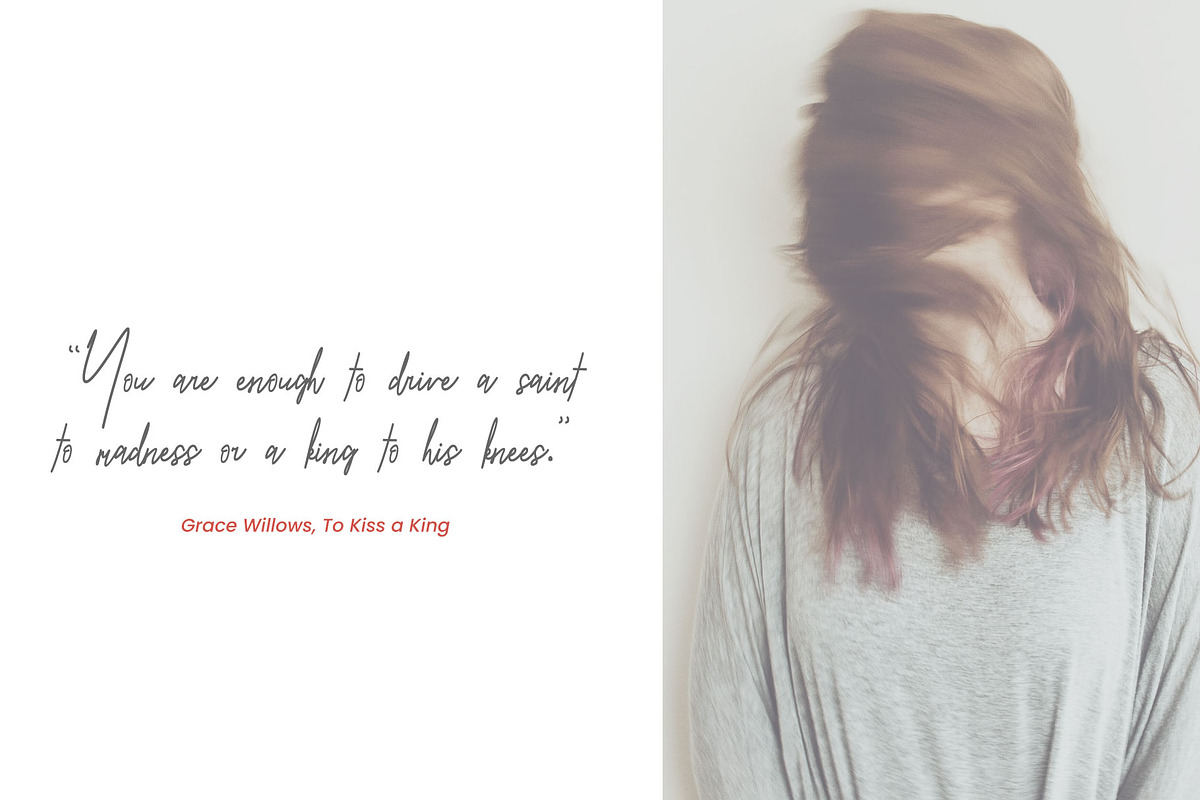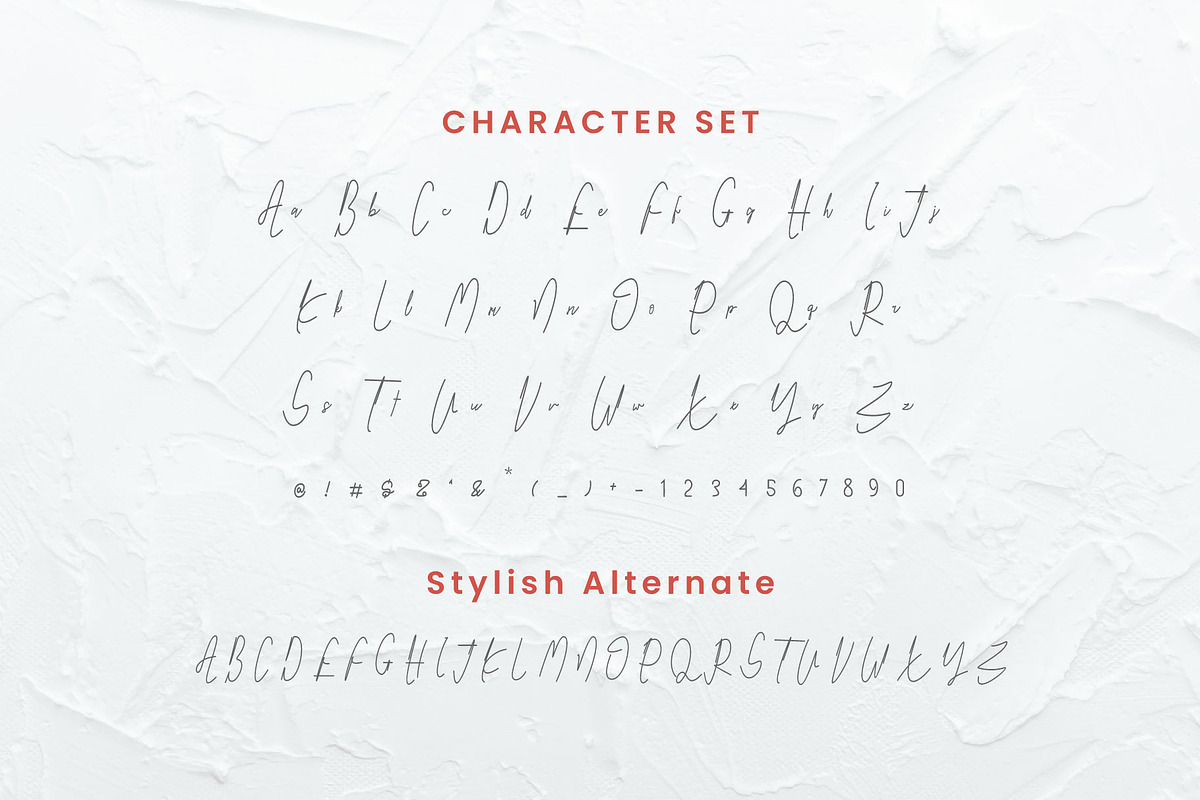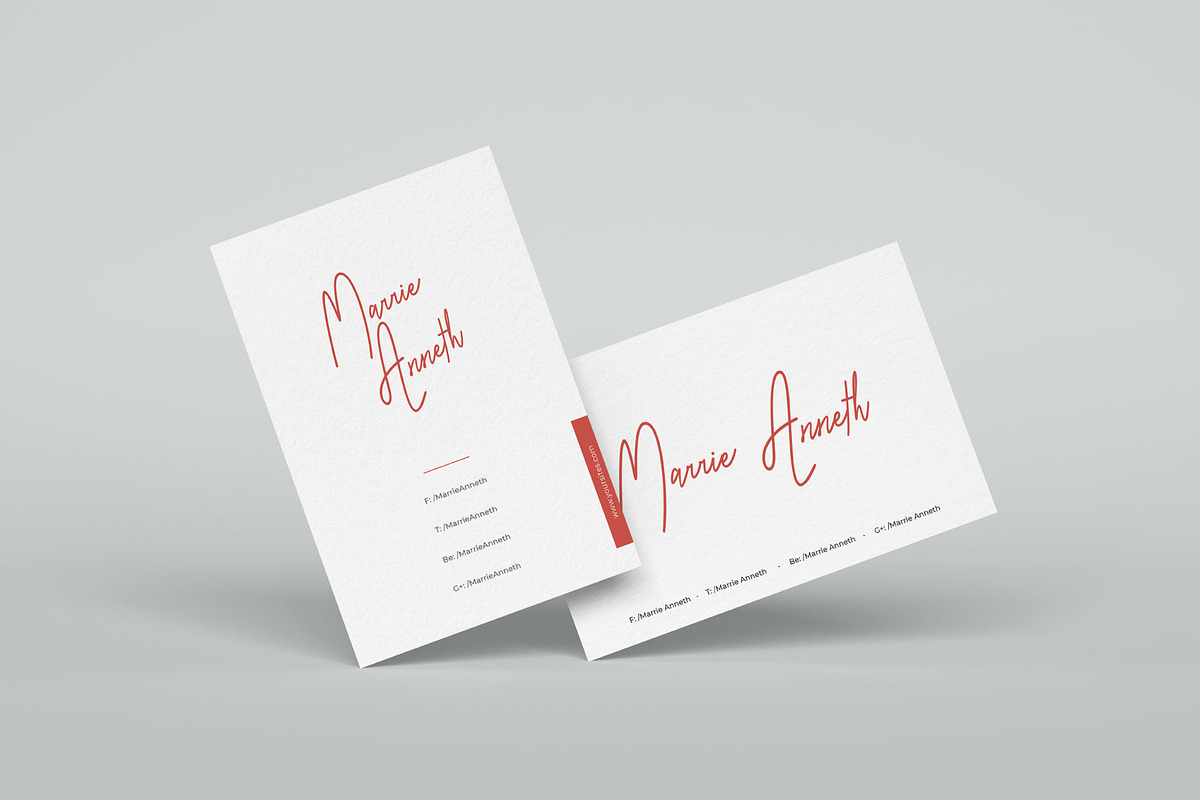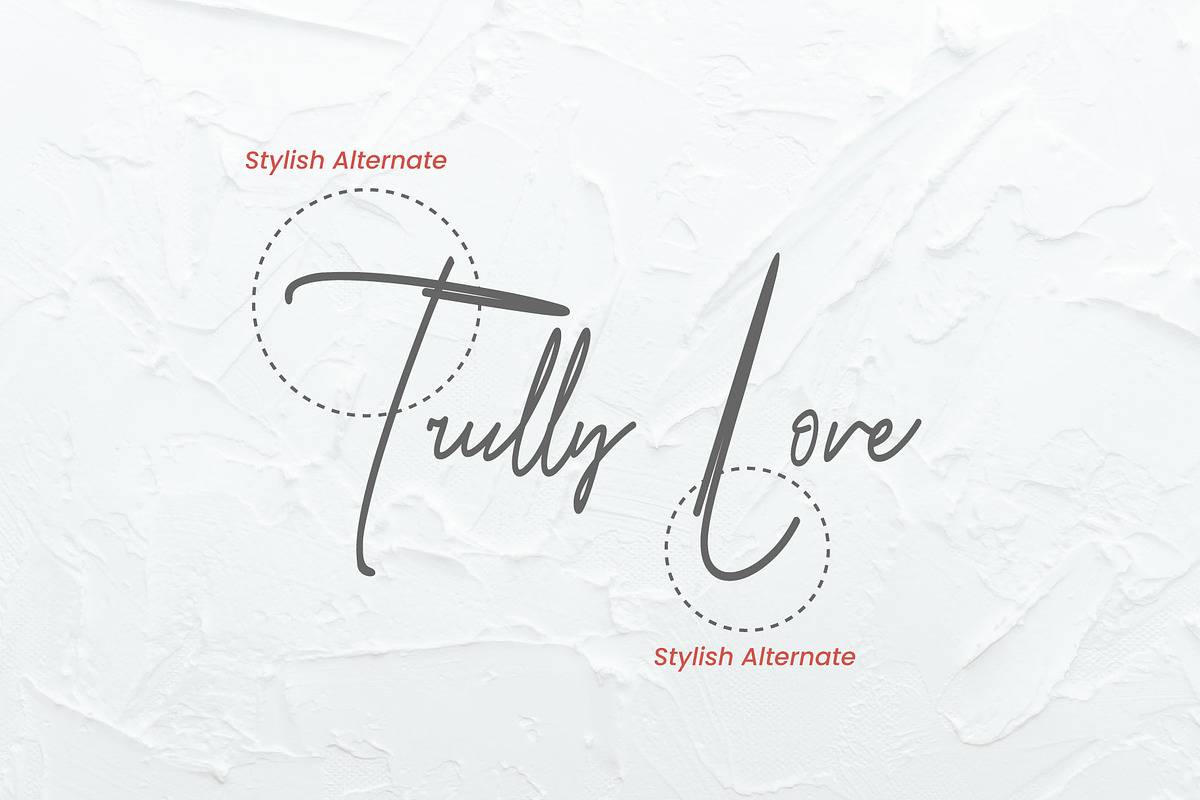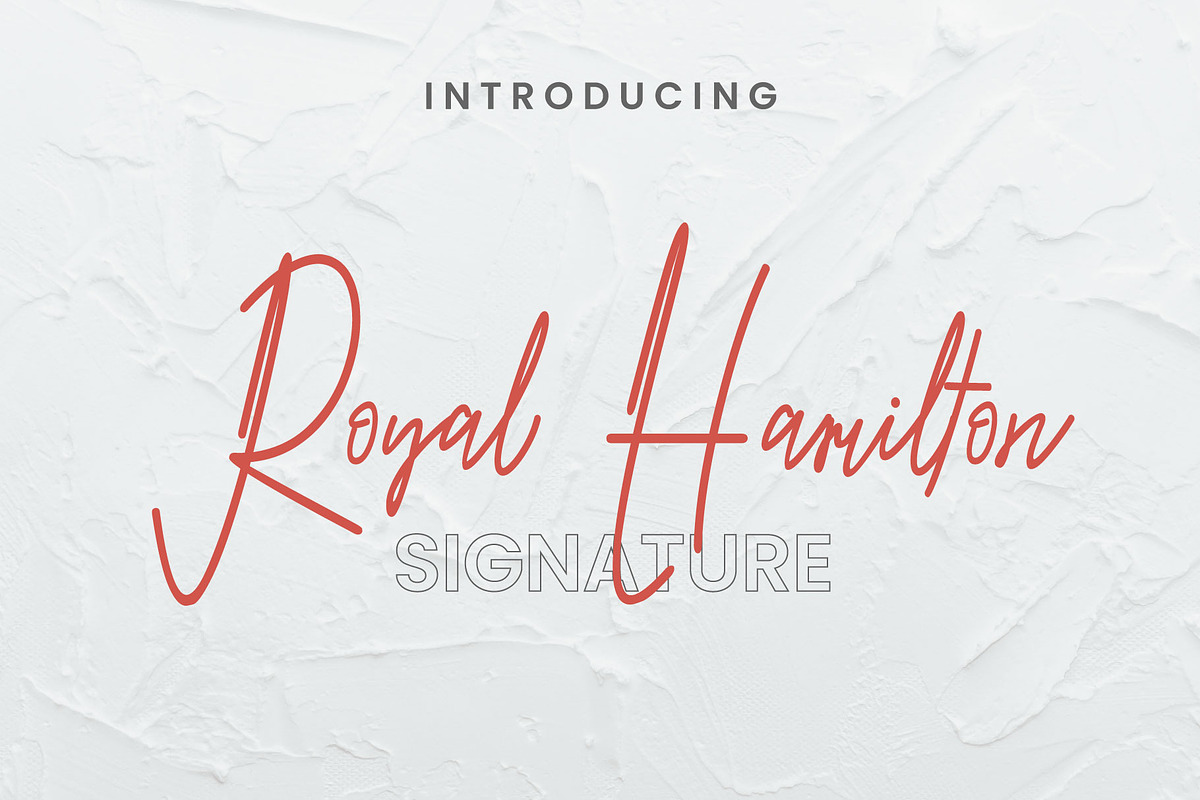
Royal Hamilton Signature
Introducing, Royal Hamilton
Royal Hamilton is an unique and elegant monoline font. It looks classy on a variety of designs requiring a personalized style, such as wedding invitations, thank you cards, weddings, greeting cards, logos and so on.
- Stylish Alternate